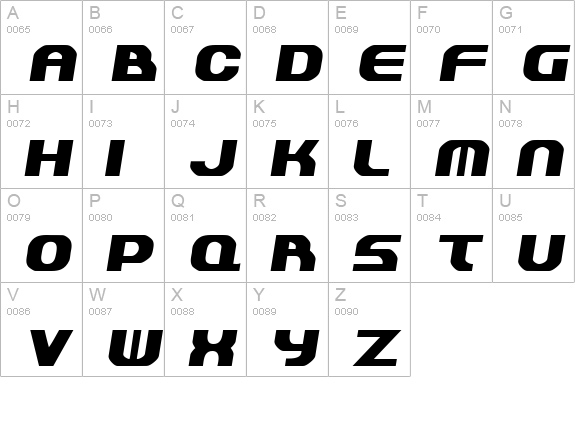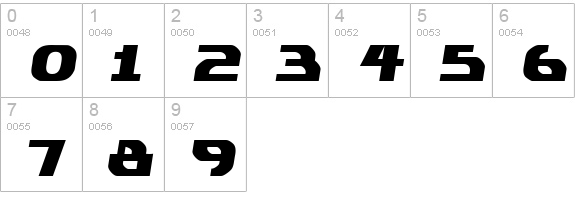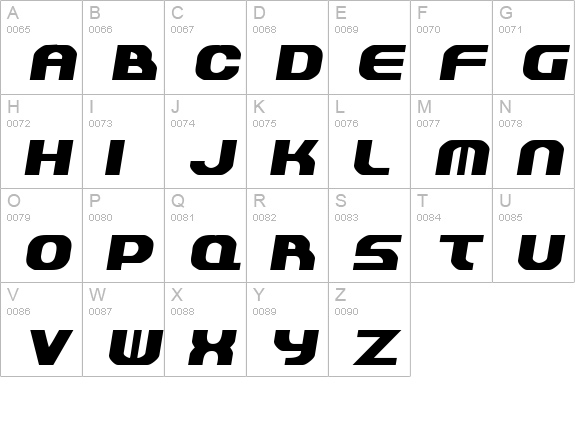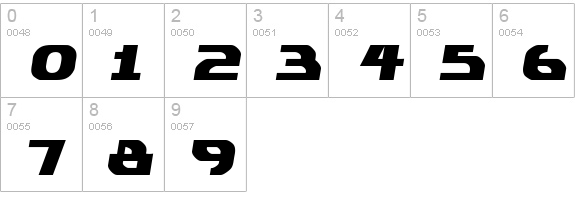
Plastique Font Details
Plastique font is a modern and sleek typeface that exudes a sense of sophistication and style. With its clean lines and contemporary design, Plastique is perfect for branding, editorial design, and much more. This versatile font is sure to make a statement in any project, adding a touch of elegance and professionalism. What's even better is that Plastique font is available for free download at FontsMarket.com. So, whether you're a designer looking to add a fresh font to your collection or someone in need of a stylish typeface for your project, Plastique is the perfect choice. Don't miss out on this opportunity to enhance your designs with this fantastic font that is both stylish and free to use.